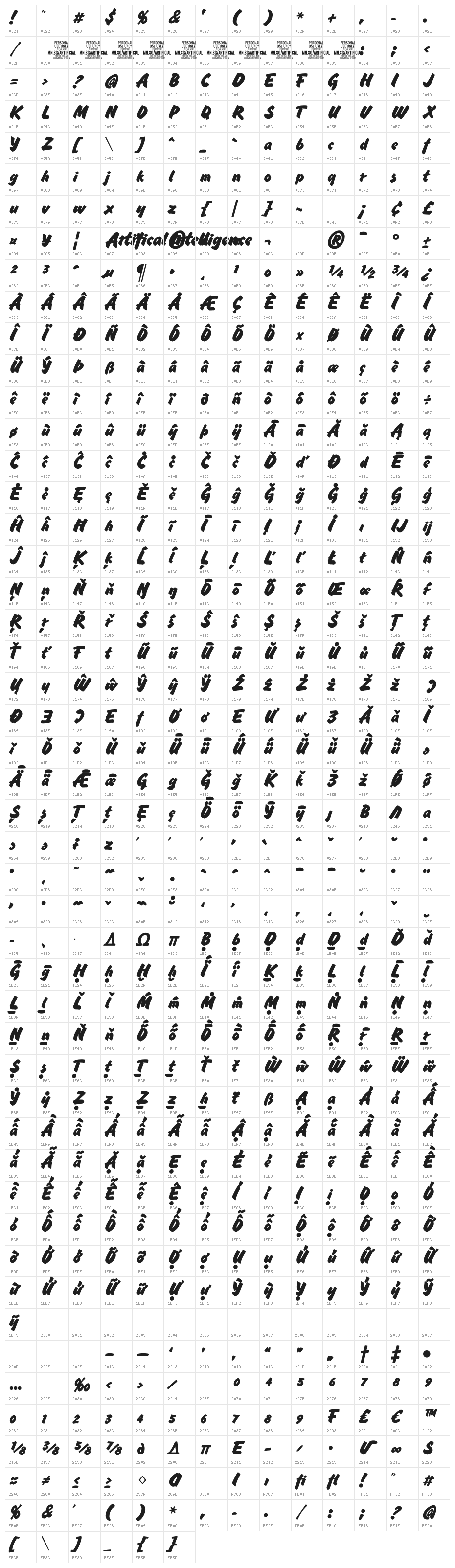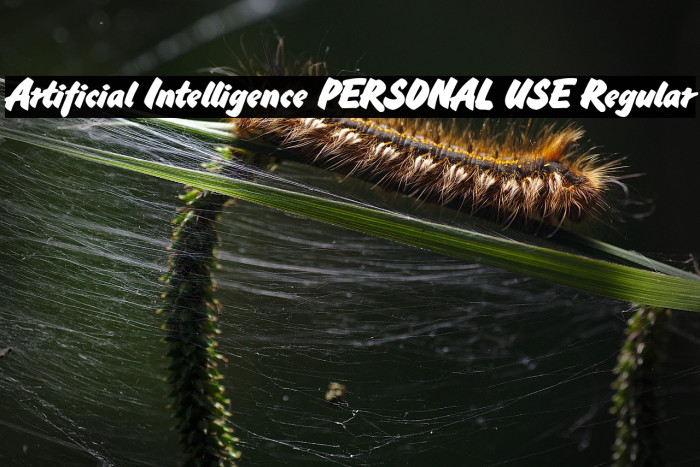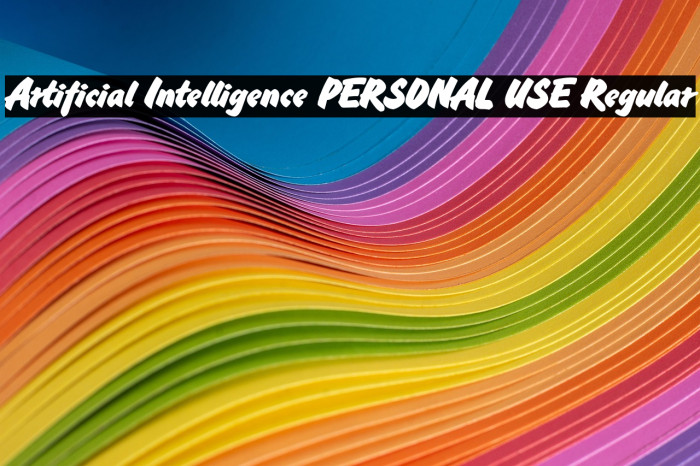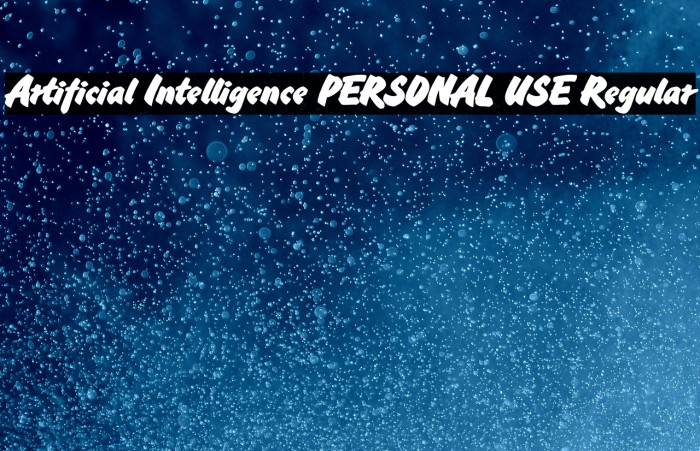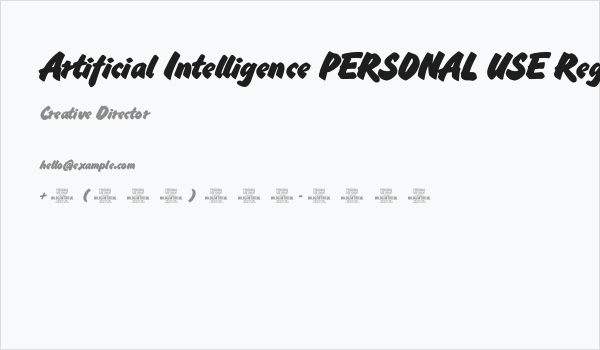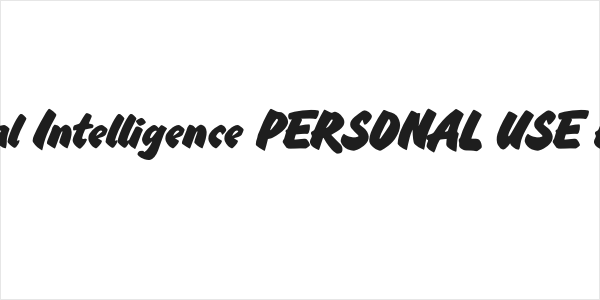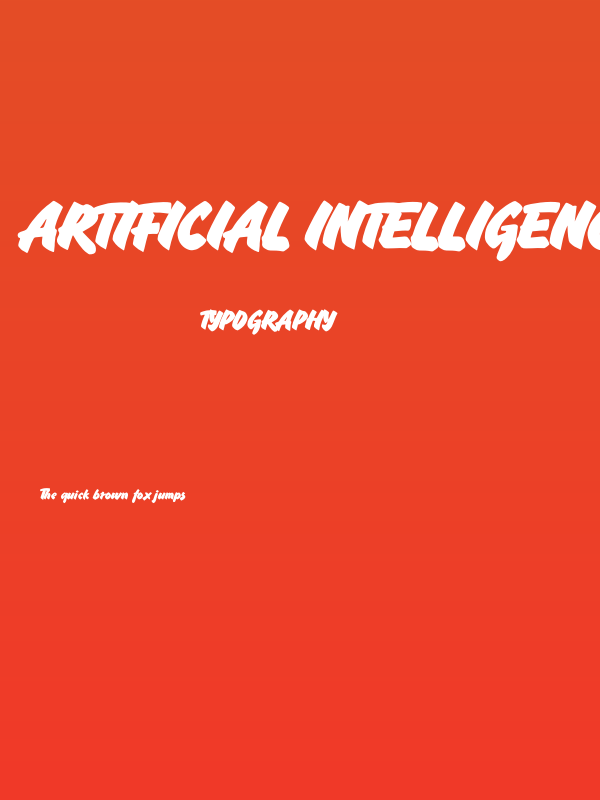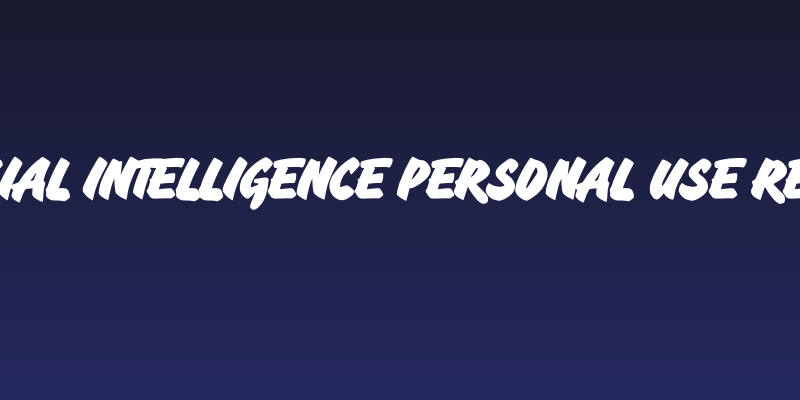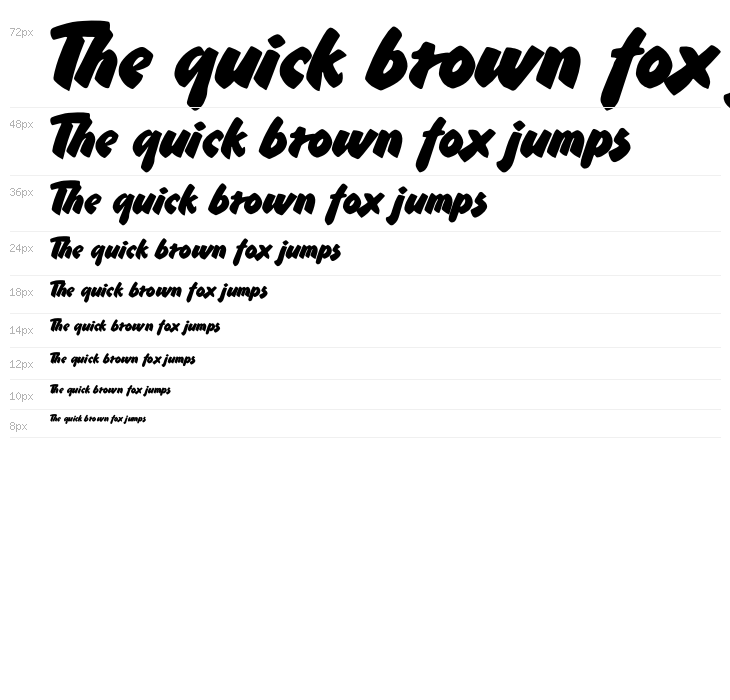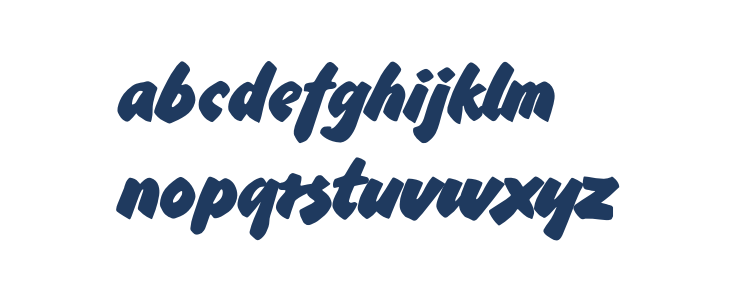
Artificial Intelligence PERSONAL USE Regular Font
Artificial Intelligence PERSONAL USE Regular Description
This bold and dynamic font features a brush script style with thick, energetic strokes that convey a sense of movement and flair. The letters are closely spaced, adding to the compact and impactful appearance. The uppercase and lowercase characters maintain a consistent style, with rounded edges and a slightly slanted orientation, enhancing the handwritten feel. The numbers and special characters follow the same aesthetic, ensuring uniformity across all elements. This font's boldness and unique style make it ideal for projects that require a strong visual impact.